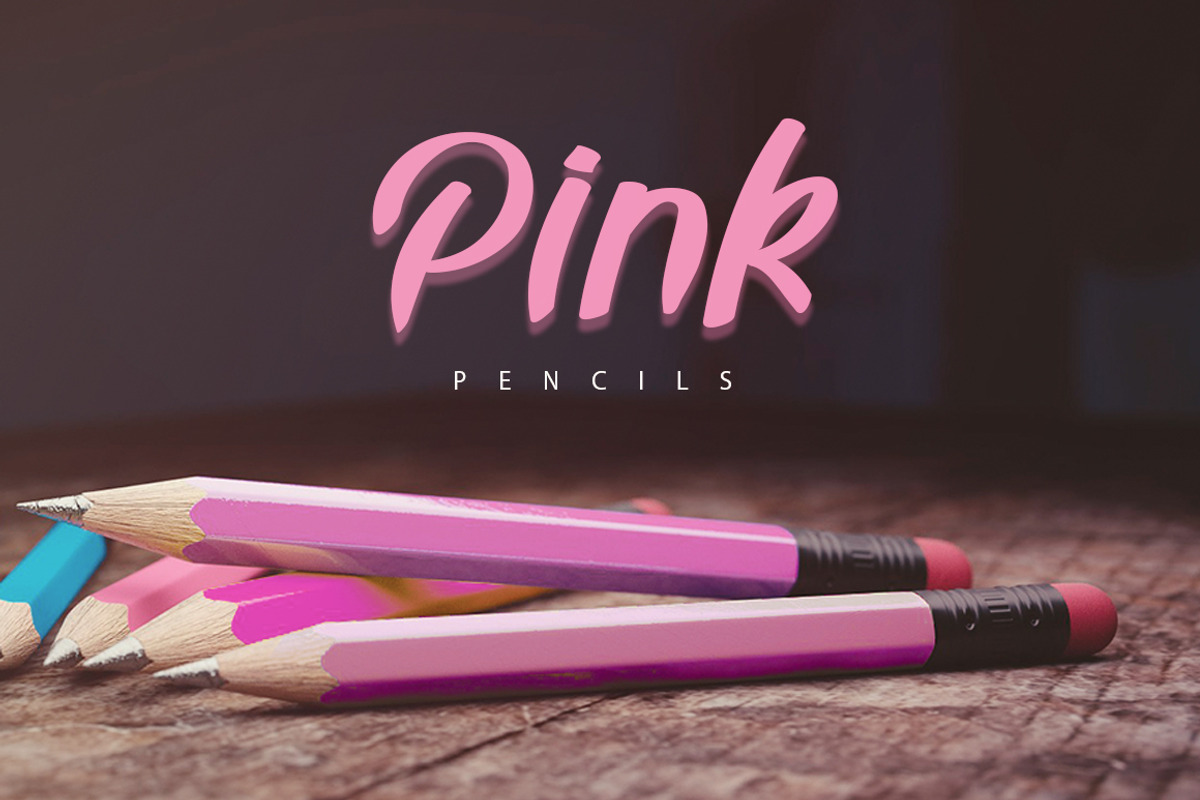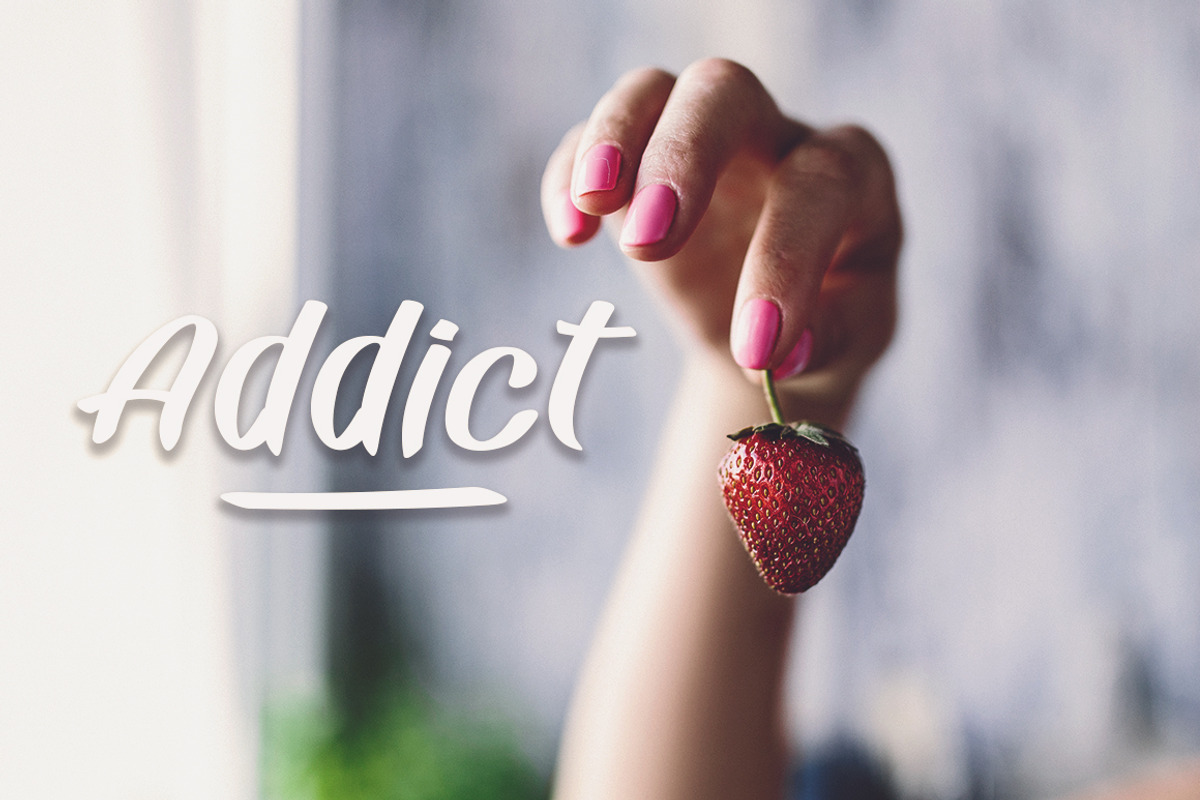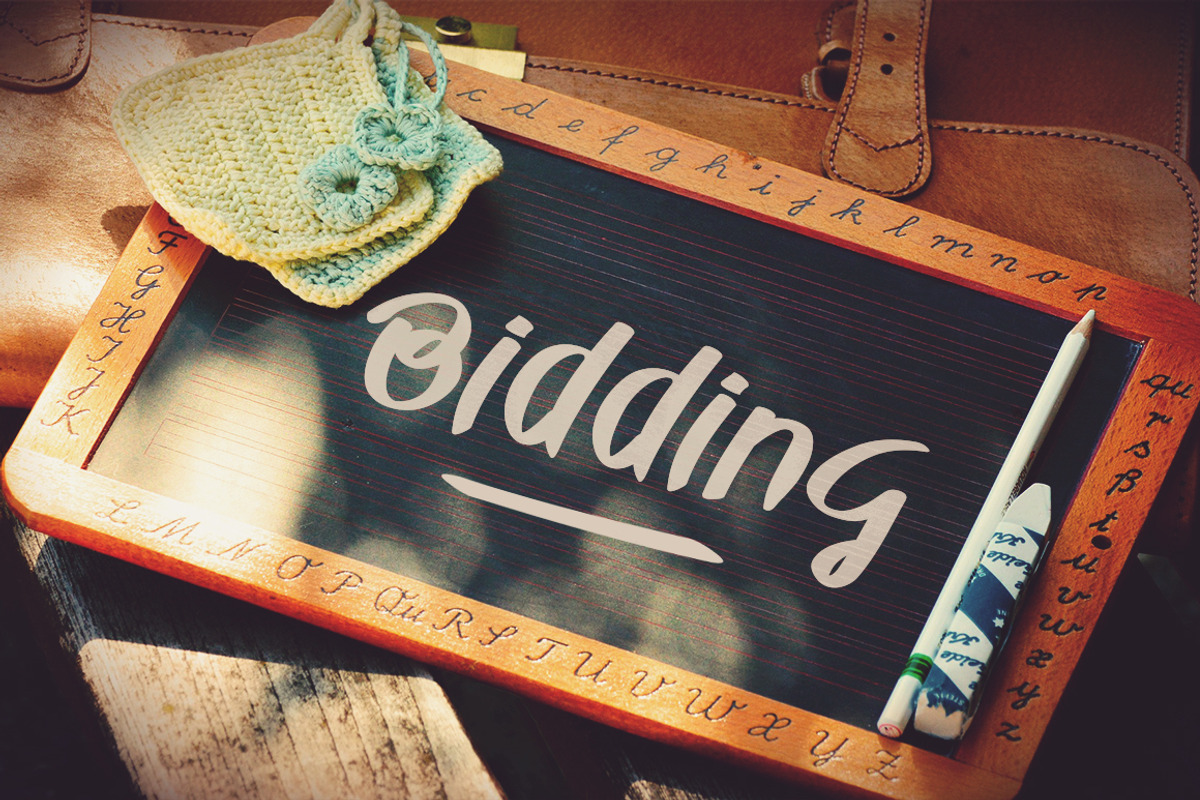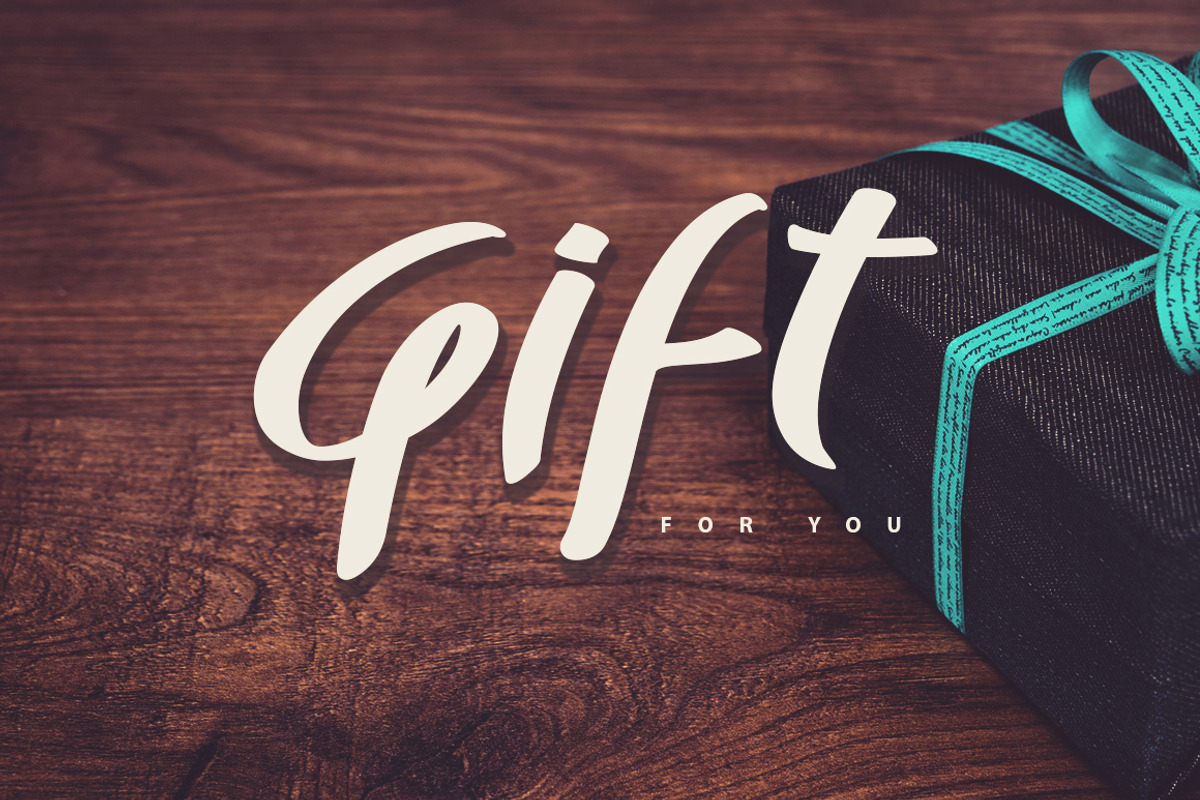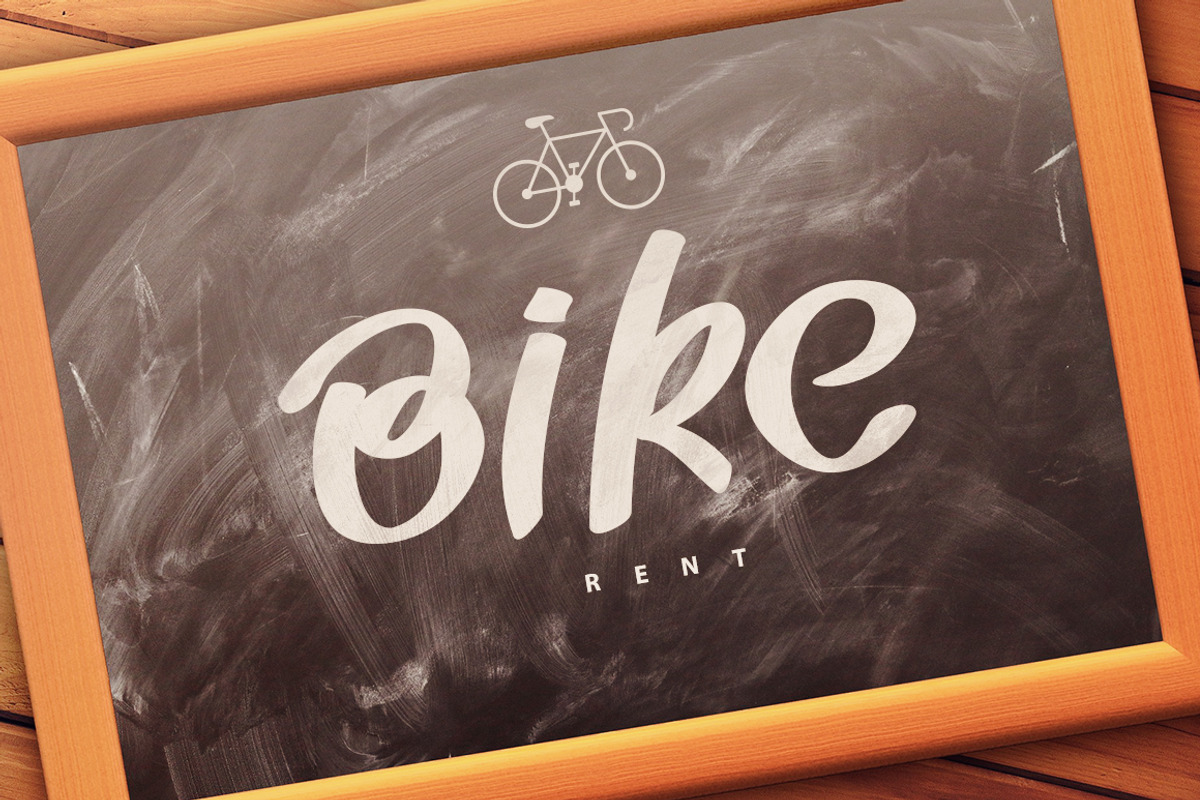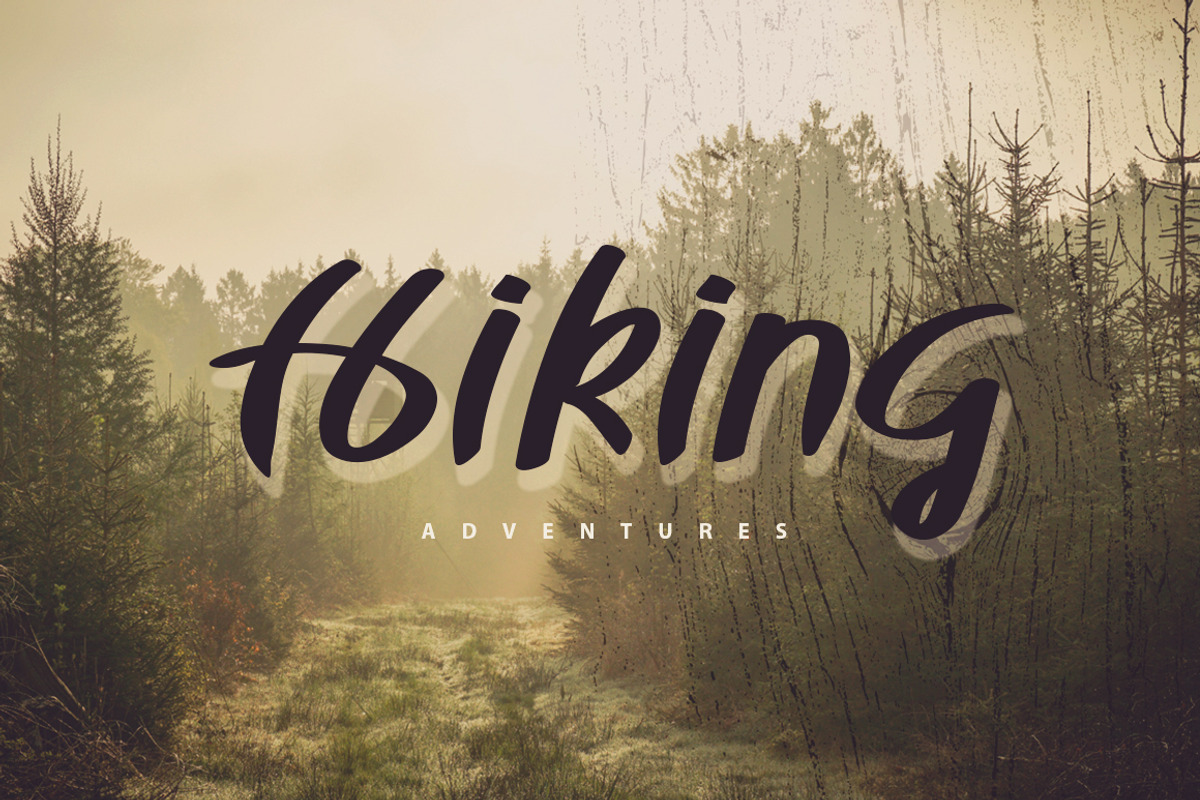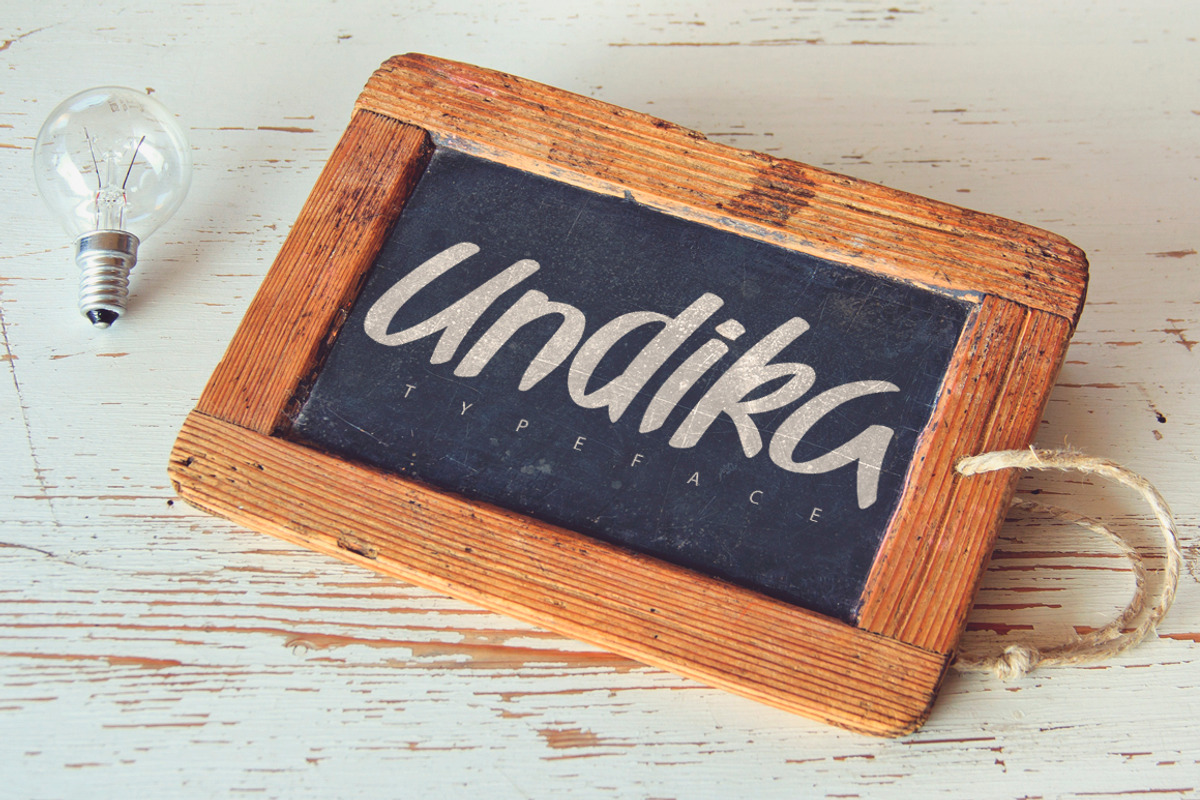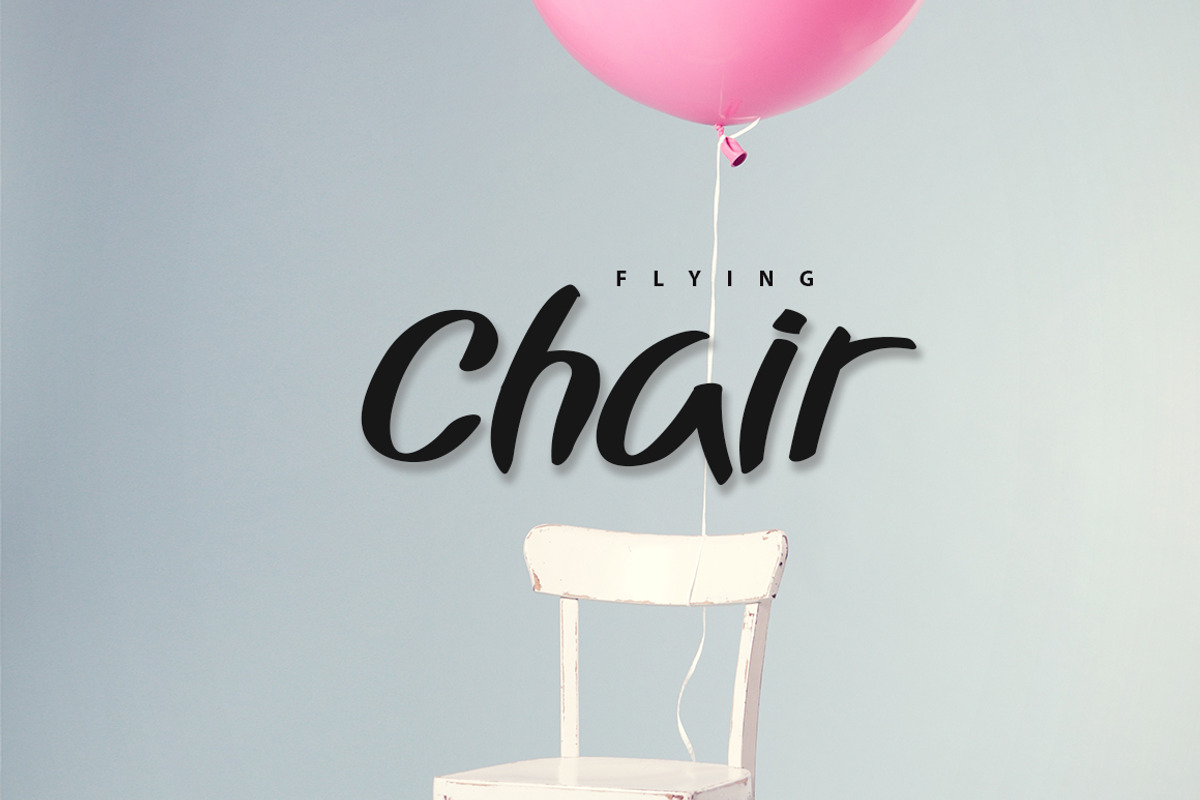
Undika Typeface
Undika Typeface by SmartDesigns is a font selected for branding, posters, packaging, typography.
- Undika Light
- Undika Regular
- Undika Bold
Why Undika Typeface is worth a look
Undika Typeface by SmartDesigns fits naturally into Branding, posters, packaging, typography.